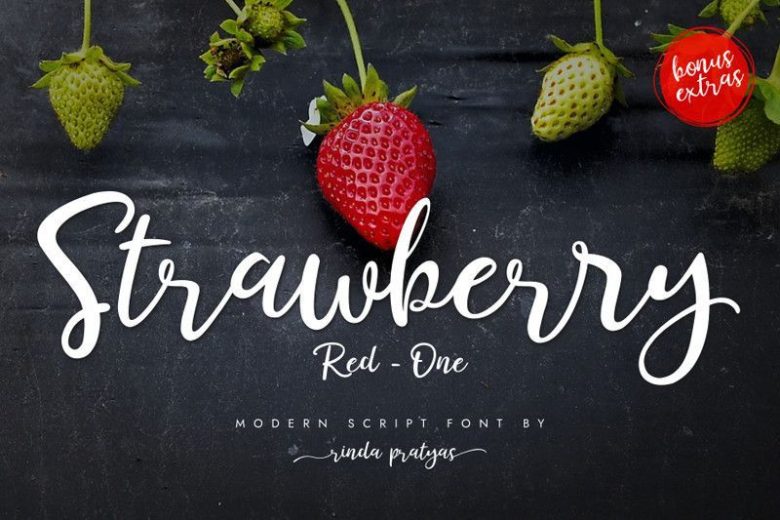
Strawberry Red One Script Font
Strawberry Red-One is a modern script font inspired by the fruit of the strawberry, makes this font looks fresh, stylish, elegant and natural. This font is great for logo branding & invitations, wedding design, photography, book cover, quotes, posters, watermark, special events and many others.